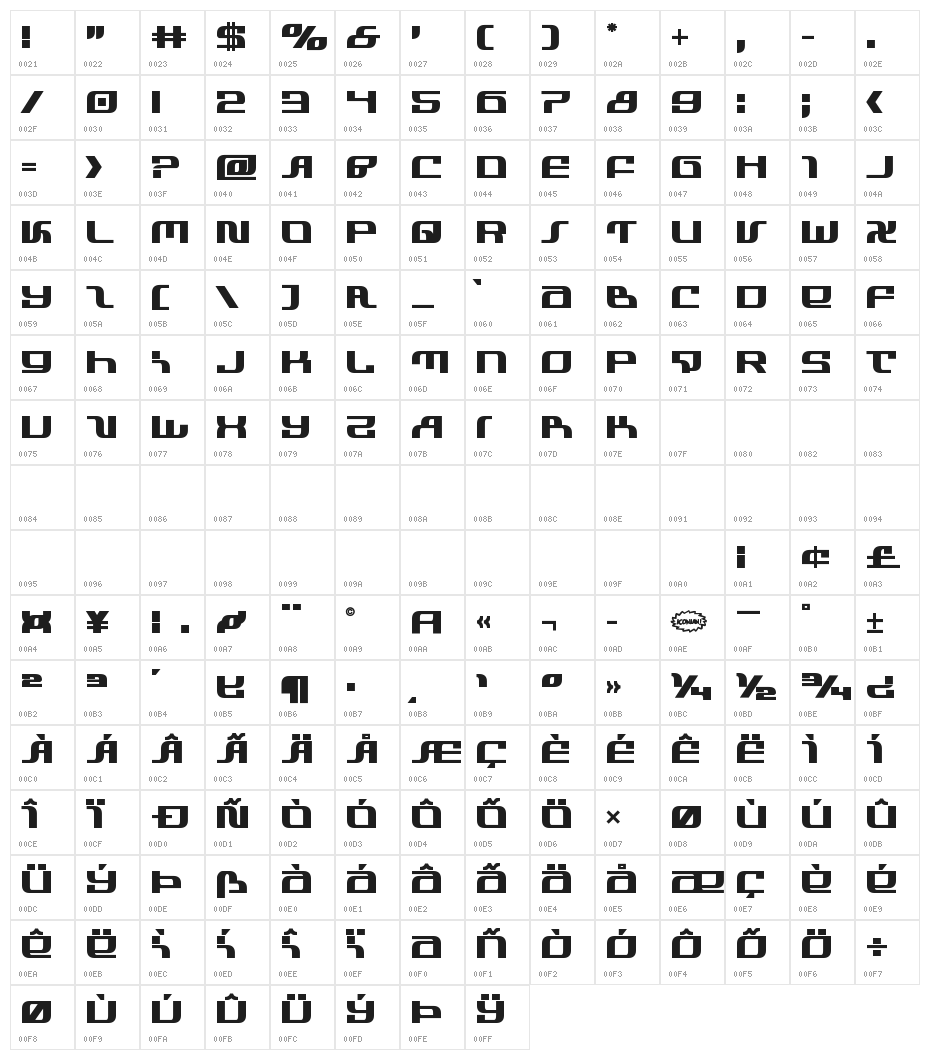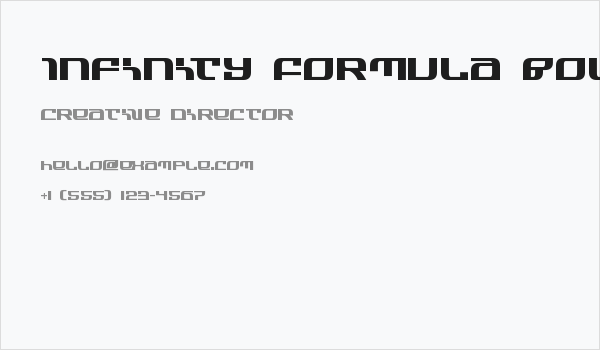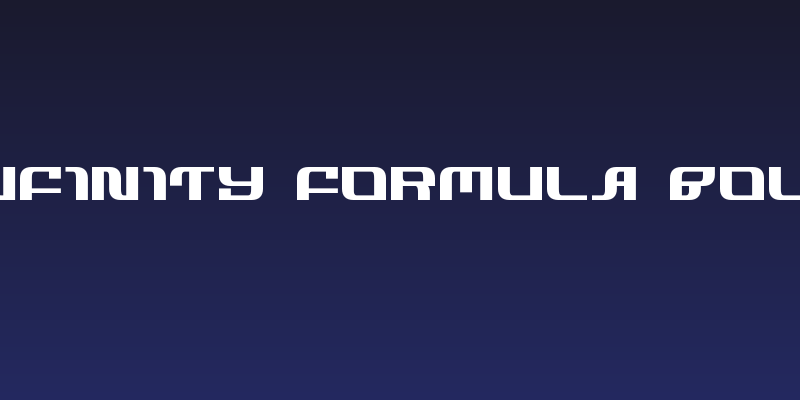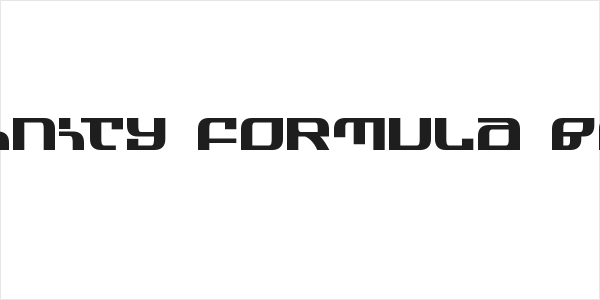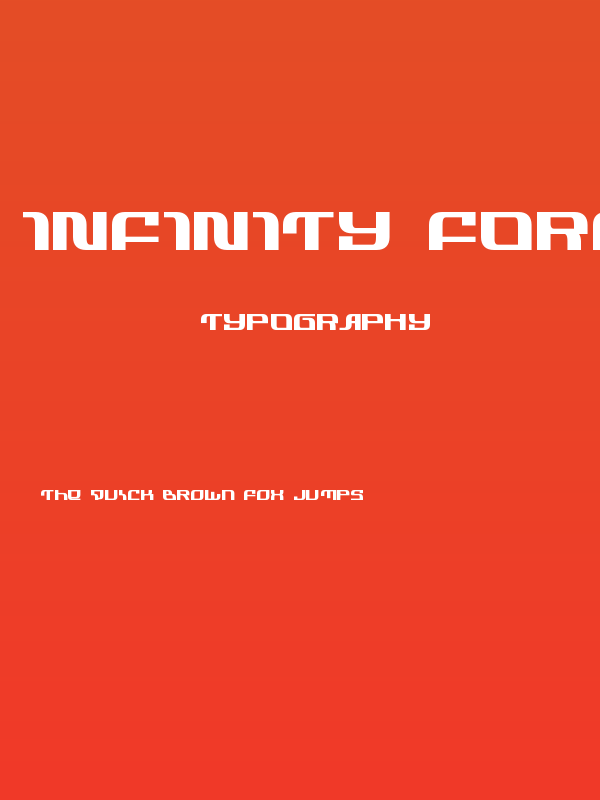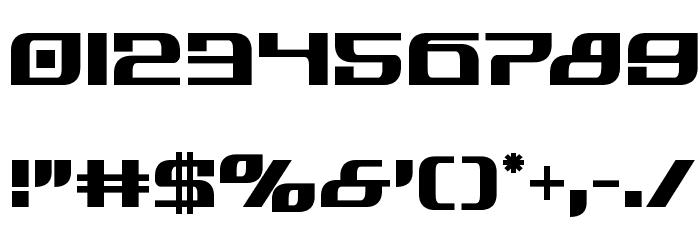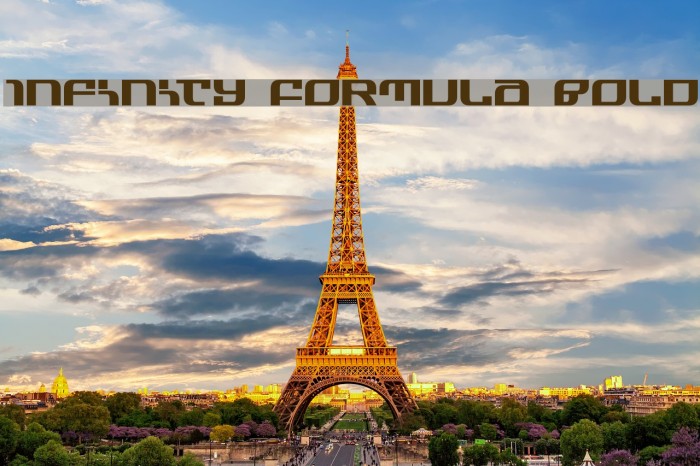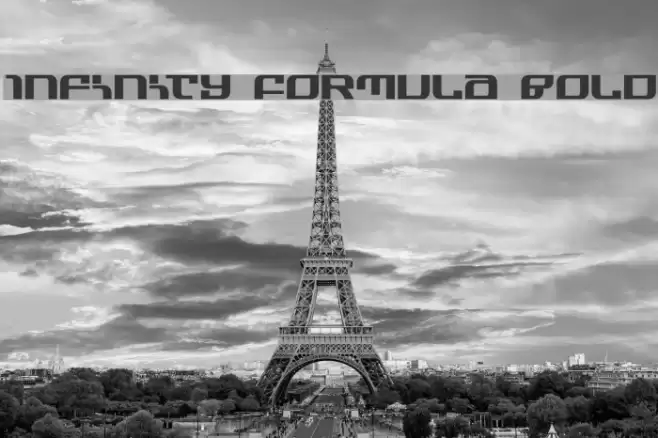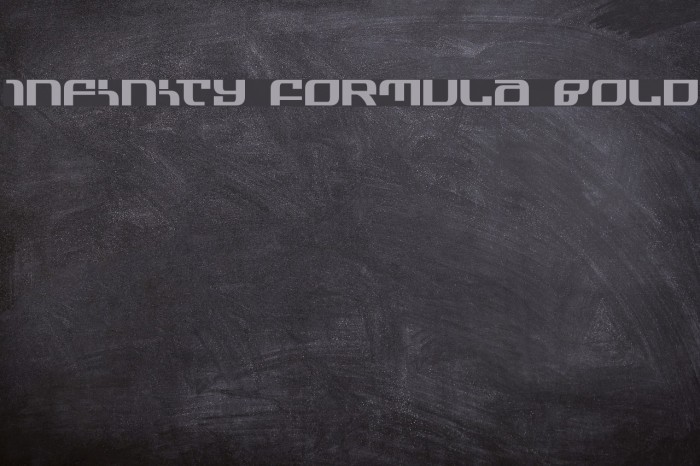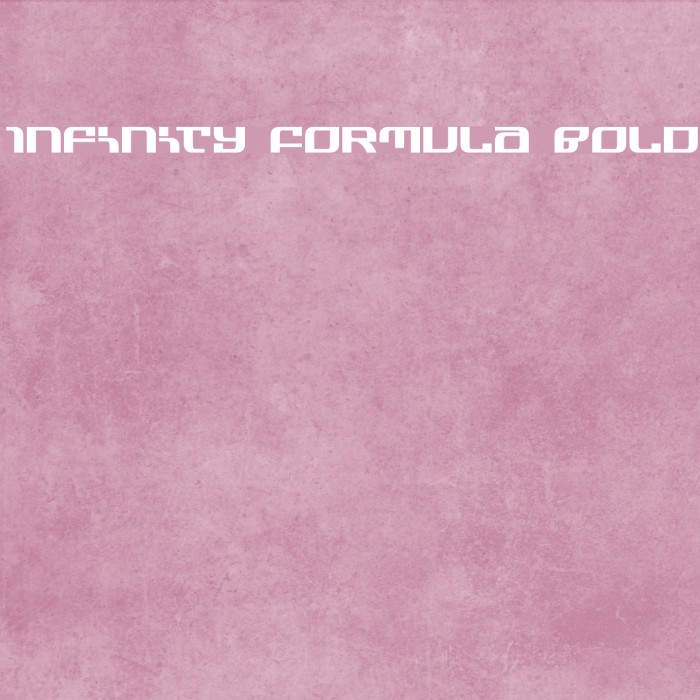
Infinity Formula Bold Font
Infinity Formula Bold Description
This font features a bold and futuristic design with a strong geometric influence. The characters are constructed with sharp angles and straight lines, giving it a modern and dynamic appearance. The uppercase and lowercase letters maintain a consistent style, with unique cuts and curves that add a sense of movement and energy. The numerals are equally bold, ensuring readability while maintaining the font's distinctive style. Special characters are designed to complement the overall aesthetic, making this font suitable for a variety of creative applications.
| Proposed Projects | Ideal for technology branding, sci-fi themed designs, video game titles, and modern advertising campaigns. |